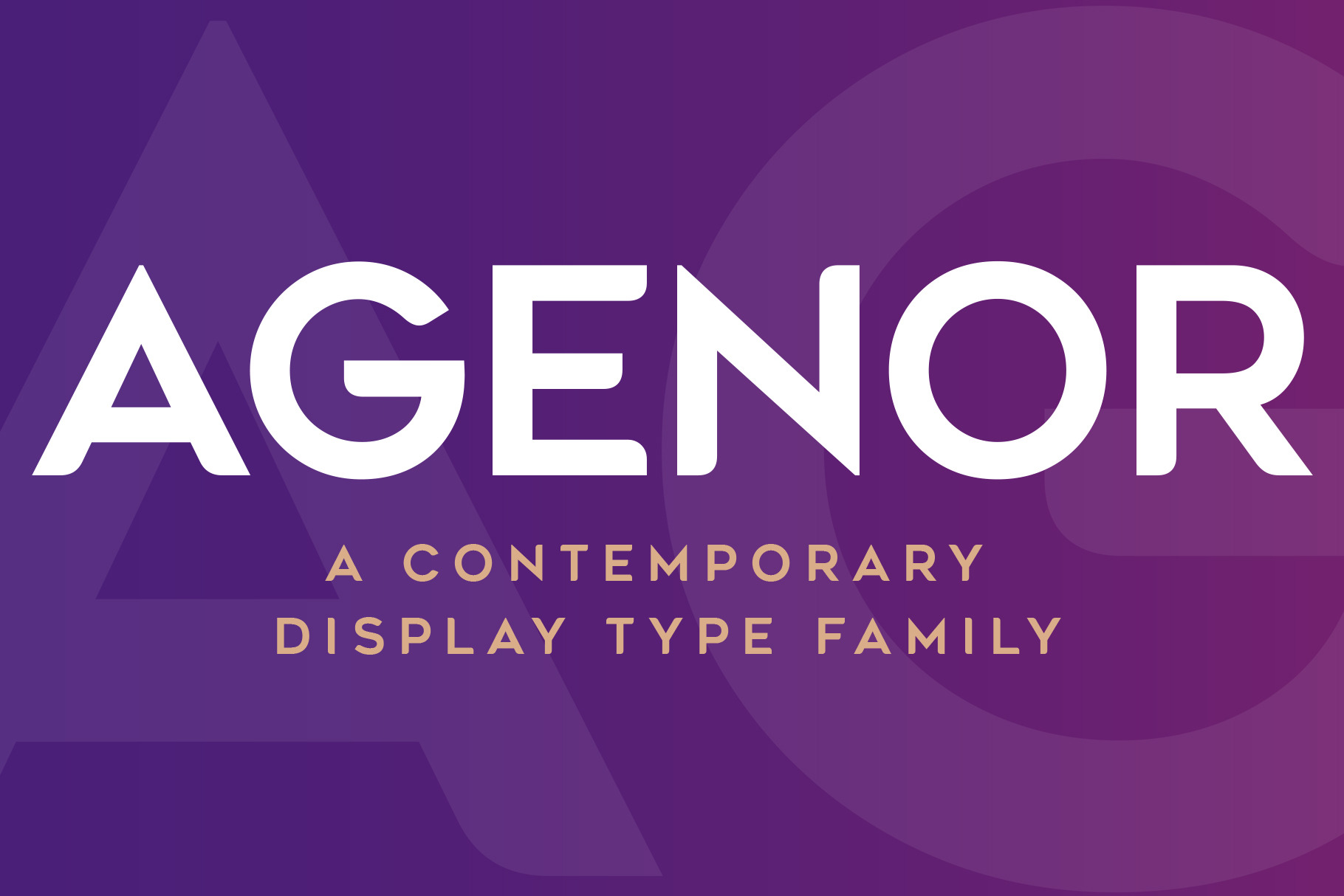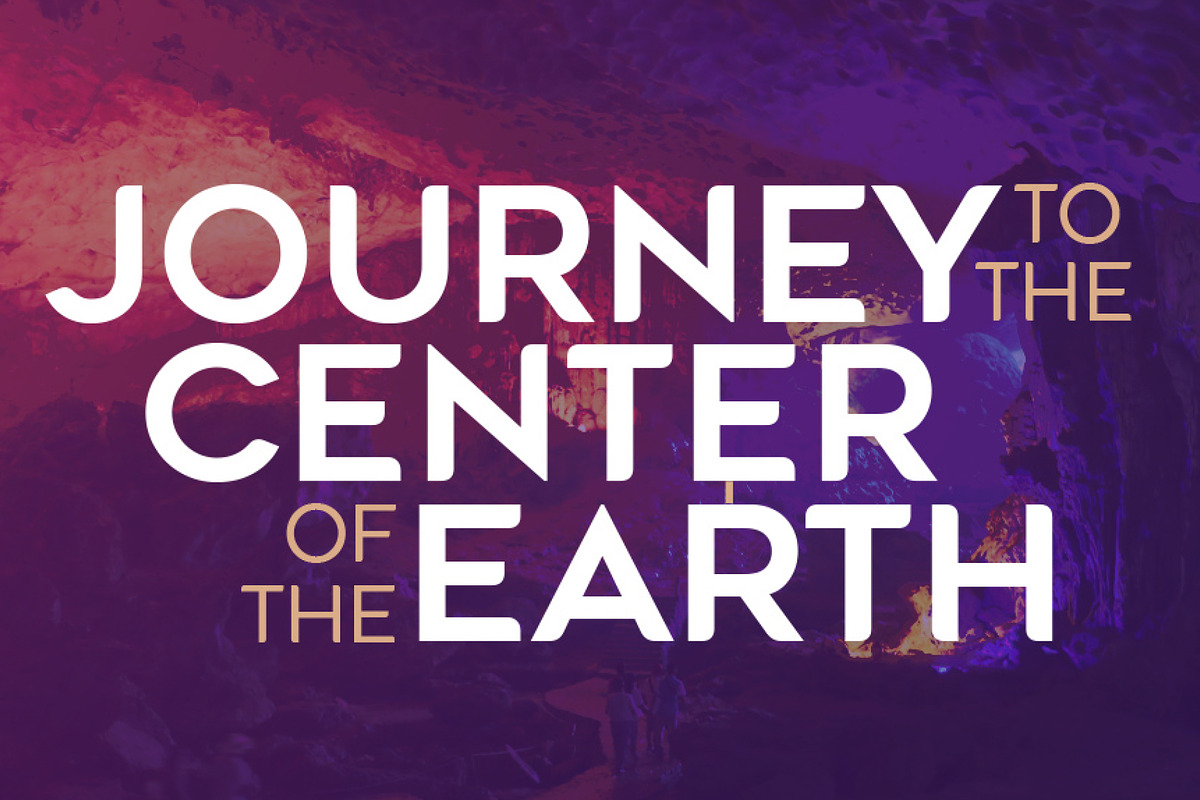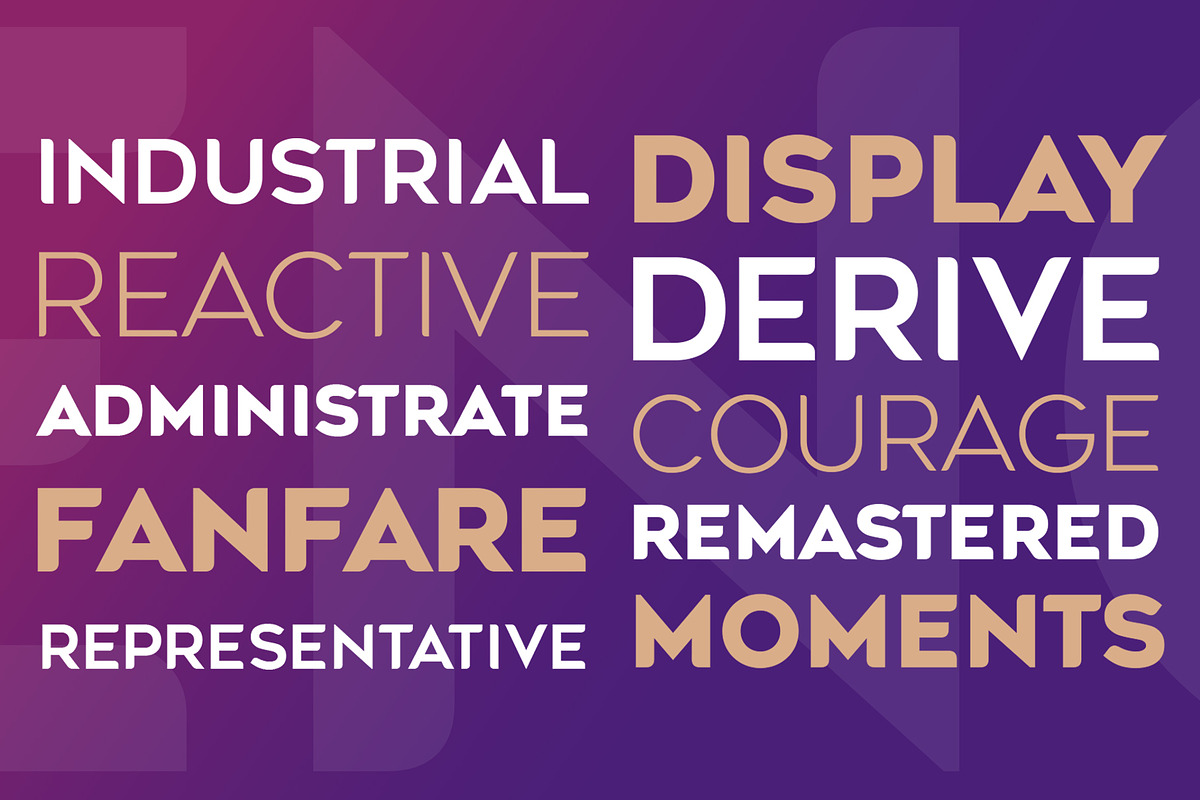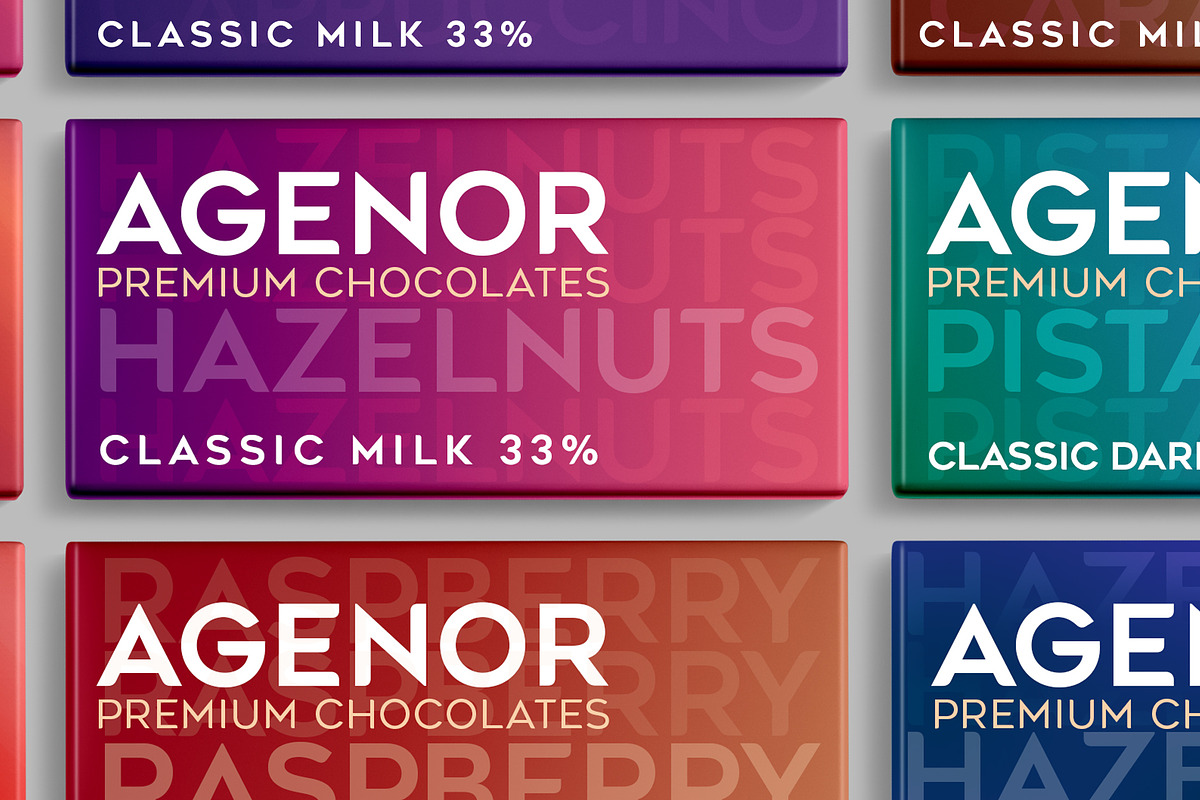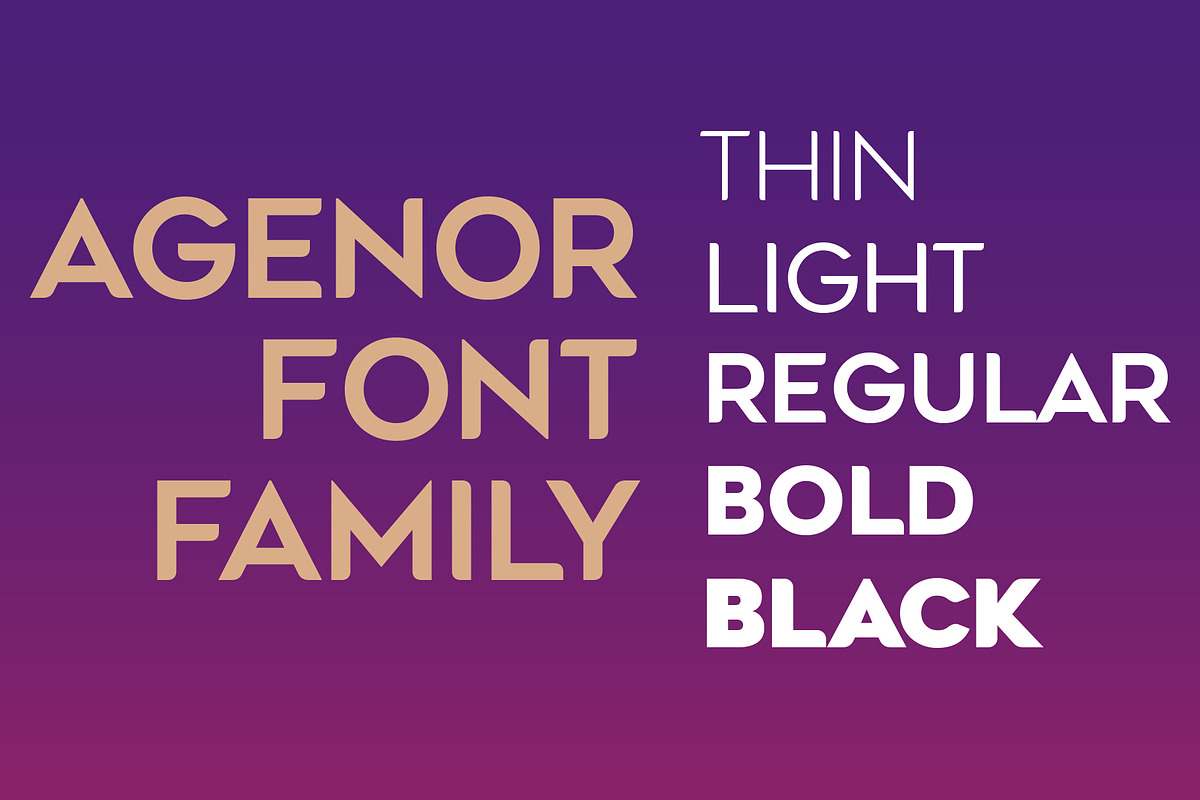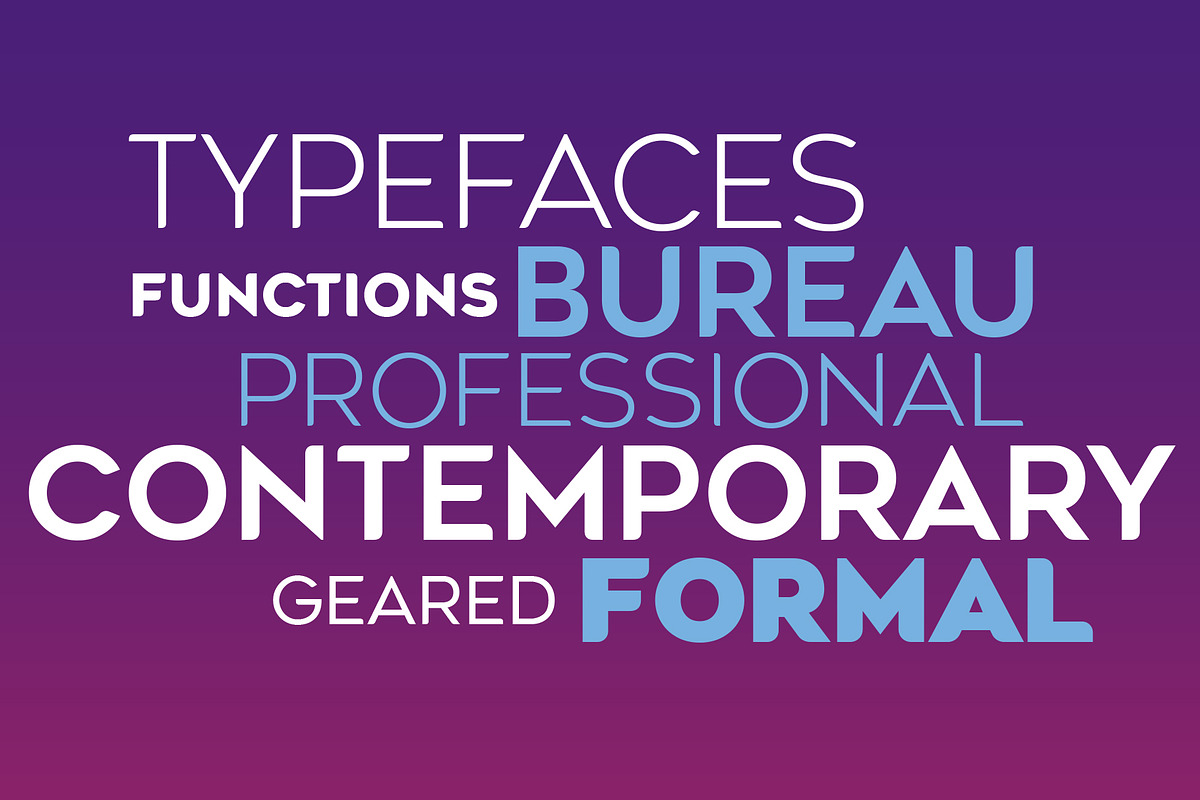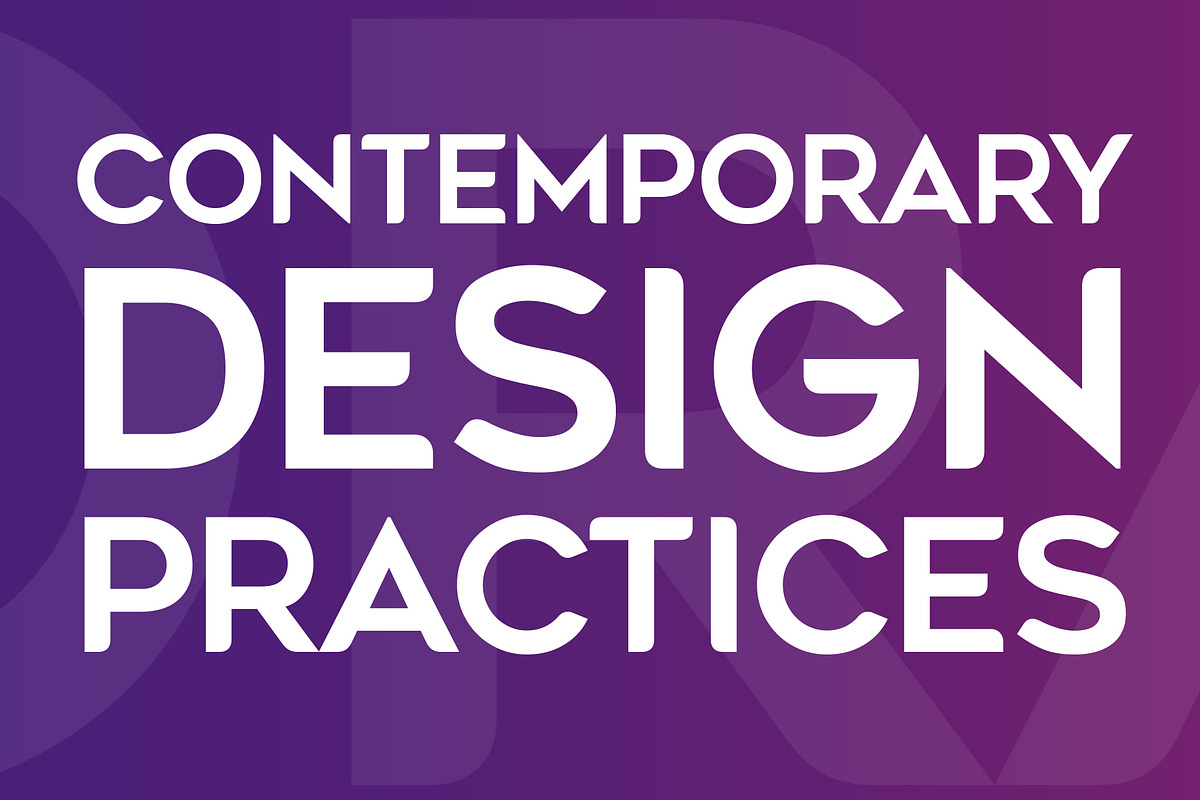
Agenor Font Family
Agenor is an all caps display typeface family. Its curved terminal give it a distinct look, which can make any communication in which it is used, to stand out in the crowd. It comes in five weights and is suitable for headlines, headings, branding, posters, packaging, titles and logos.